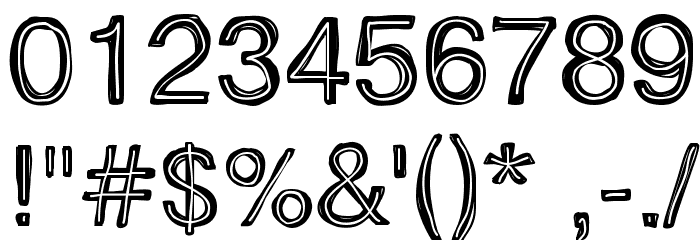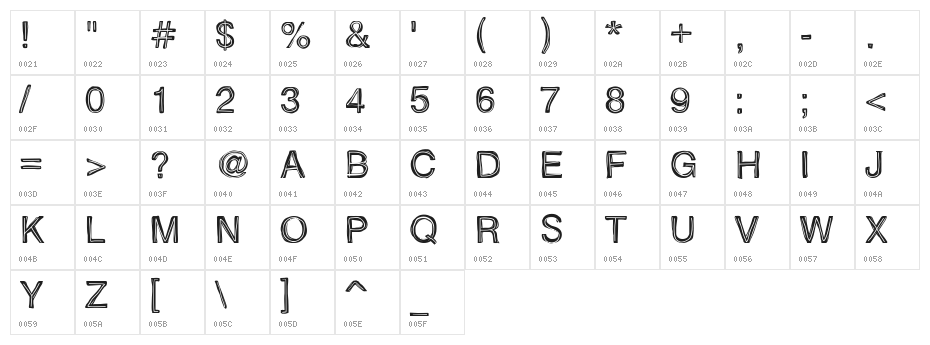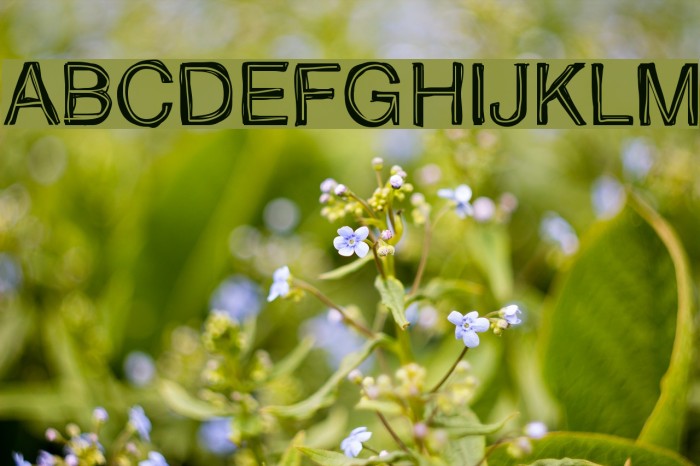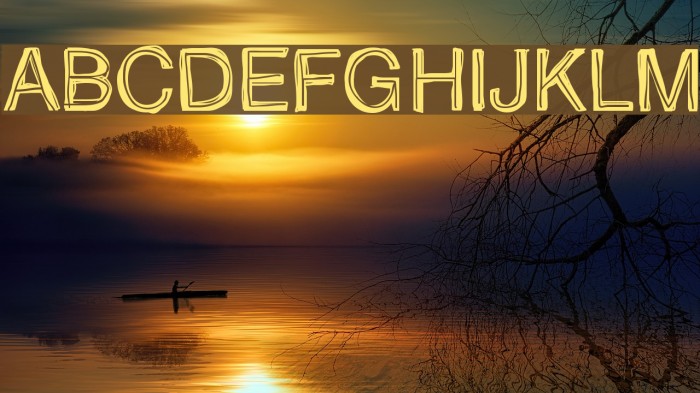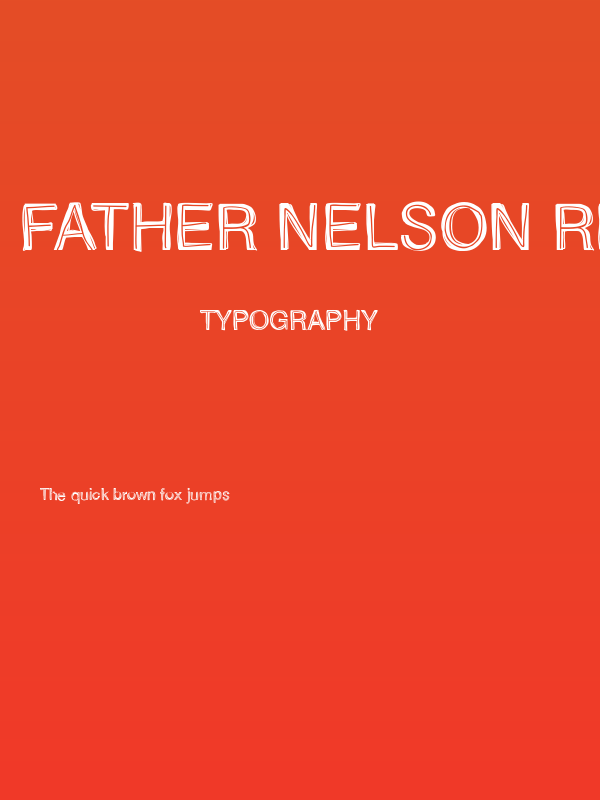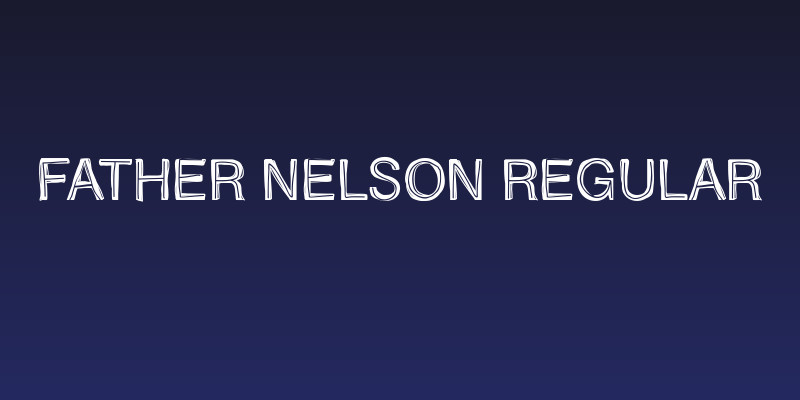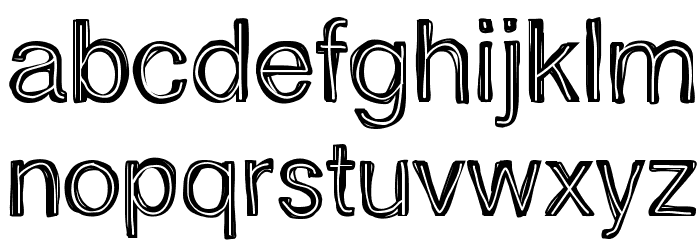
Father Nelson Regular Font
Father Nelson Regular Description
This font features a bold, hand-drawn style with a playful and artistic flair. The letters have a slightly uneven, sketch-like appearance, giving them a unique and creative look. The strokes are thick and consistent, providing a strong visual impact. The characters are well-spaced, allowing for easy readability while maintaining an informal and casual vibe. The font includes a full set of uppercase and lowercase letters, numbers, and a variety of special characters, making it versatile for different design needs. Its distinctive style makes it suitable for projects that require a touch of personality and creativity.
Proposed ProjectsIdeal for creative projects such as posters, invitations, branding, and social media graphics.